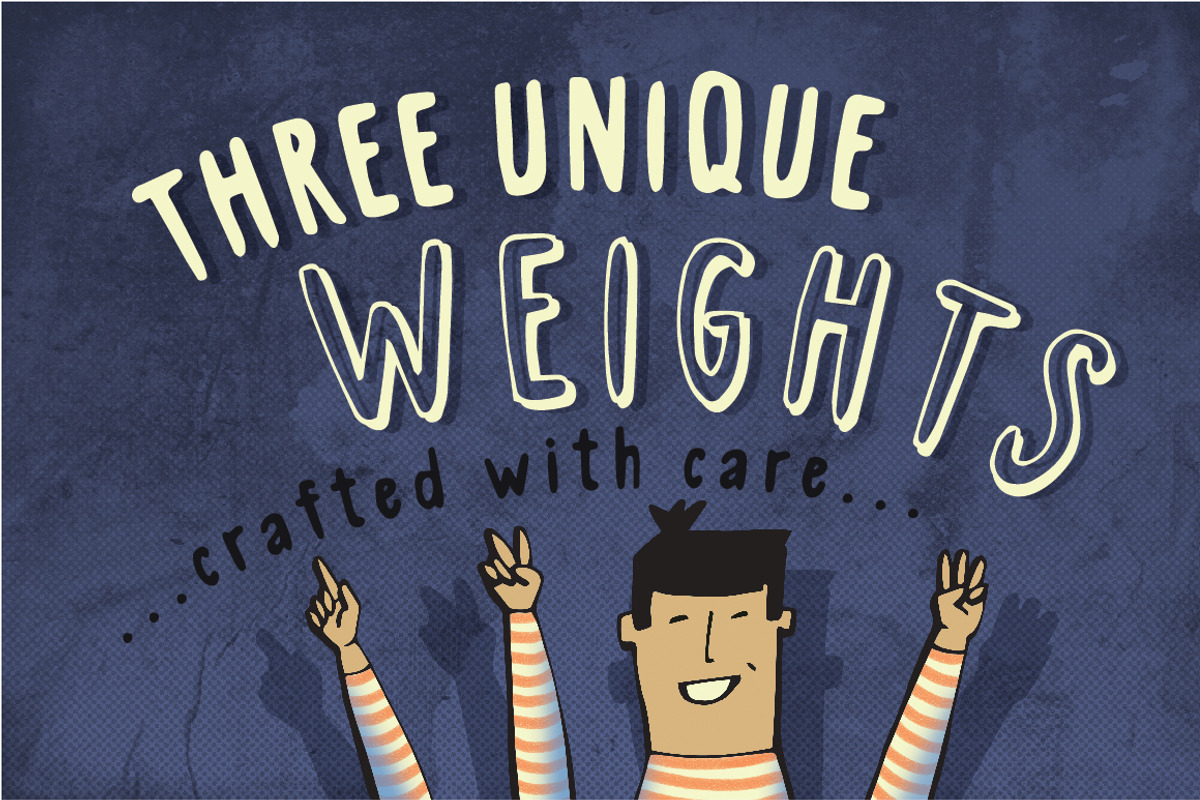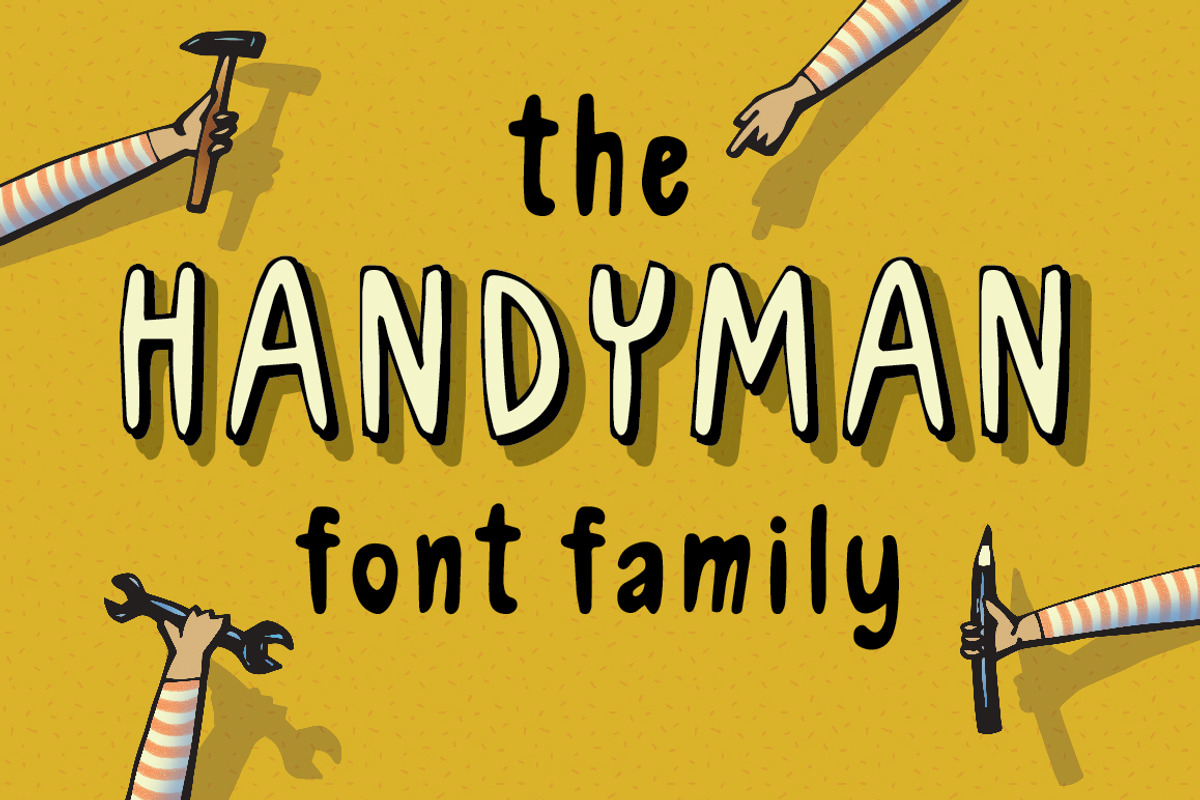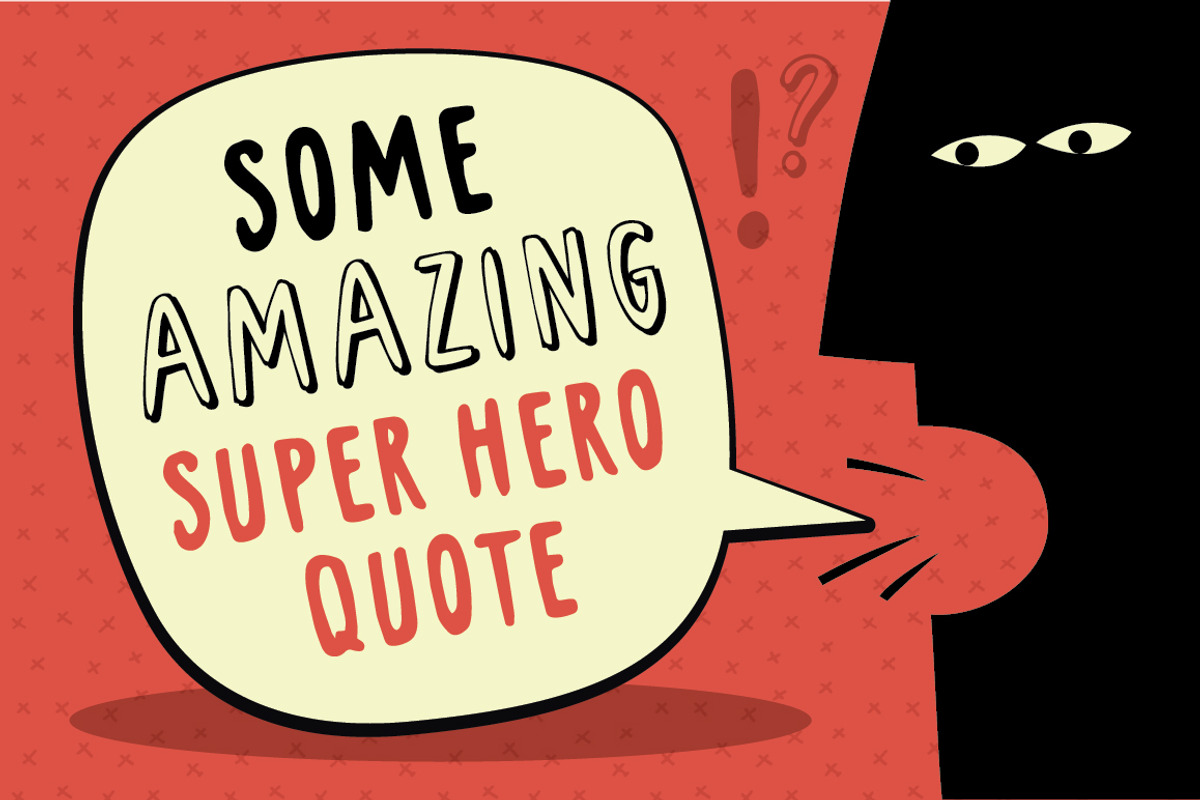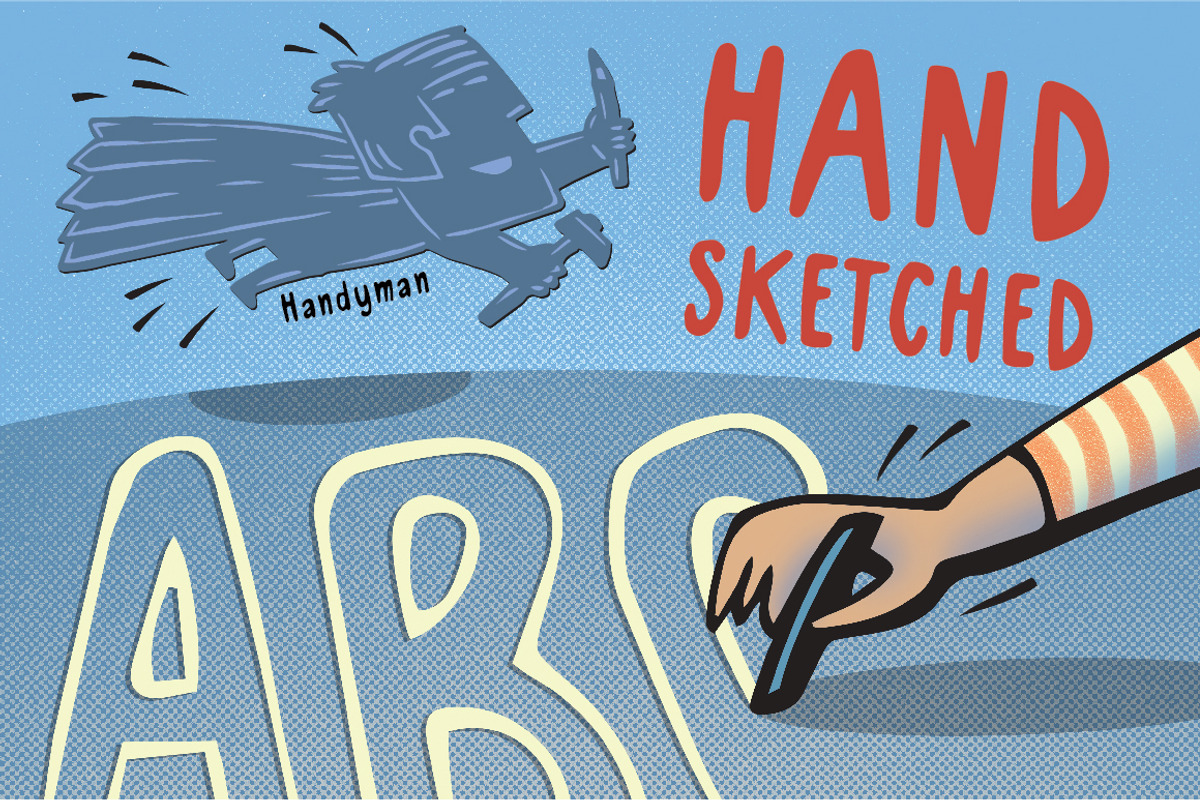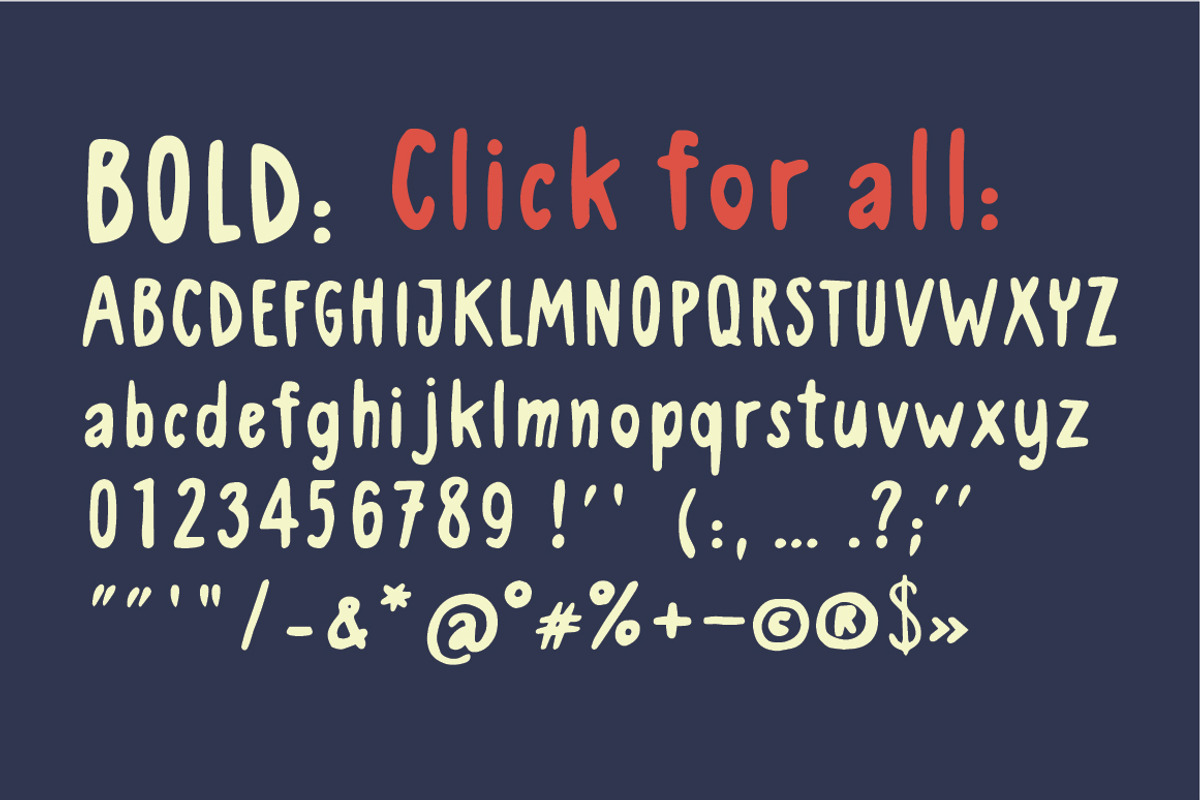
Handyman the Skillful Font Family
"Looking for someone to help you nail a frame or assamble your new ikea furniture? Tell Handyman! The very skillful font. "
It's a handcrafted font family, created to helping you while no one else can. It's handwritten, but no worry - there's no rough edges. So you can use it even on big formats without worry. Ready to be used on posters, covers, or practically everywhere if the occasion is not that serious.
Include three usual weights - regular, bold and shadow. That allow you combine them very effective.
- Handyman Regular
- Handyman Bold
- Handyman Shadow